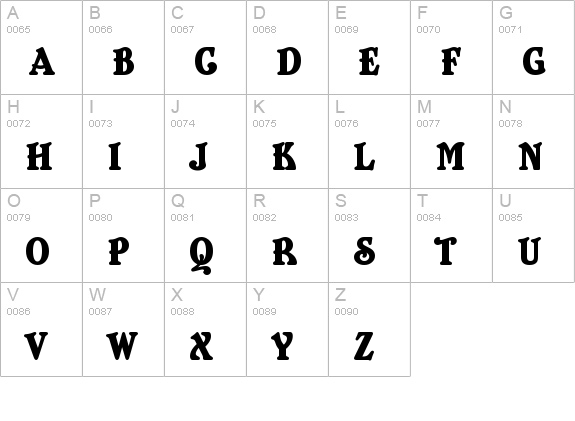
Bellboy-Regular is the standard, neutral variant in the Bellboy typeface family \xE2\x80\x94 well suited to general body text, paragraphs, and standard typographic work.
Bellboy-Regular is a versatile and modern font that combines a classic style with a contemporary twist. Its clean lines and balanced proportions make it perfect for a wide range of design projects, from branding to packaging to web design. The font exudes a sense of elegance and sophistication, making it ideal for conveying a sense of professionalism and sophistication. One of the best things about Bellboy-Regular is that it is available for free download at FontsMarket.com. This means that you can easily access this high-quality font without any cost, making it an excellent choice for designers on a budget or those looking to experiment with different typefaces. Don't miss out on the opportunity to elevate your designs with the timeless appeal of Bellboy-Regular. Download it today and see the difference it can make in your projects!